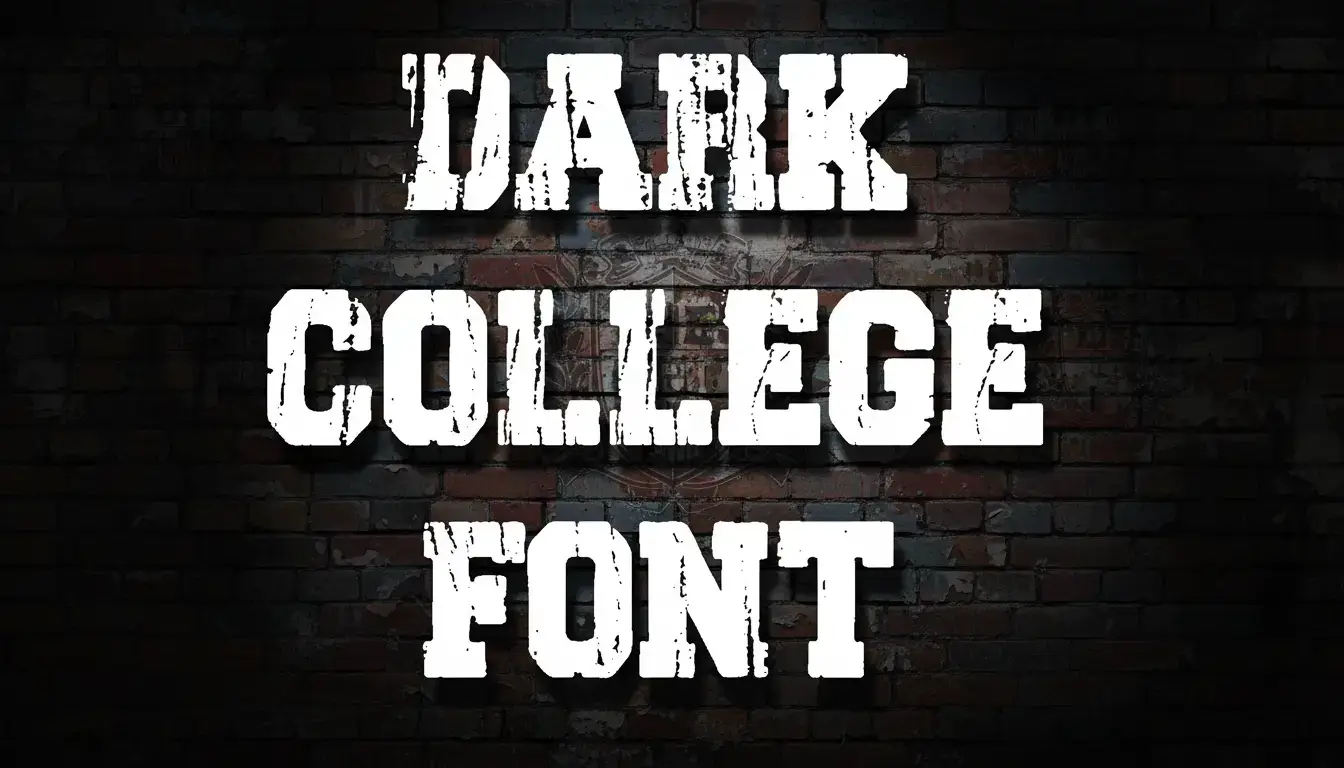
Dark College Font
Dark College
Dark College is a fancy font made by Woodcutter Manero. Bold and full of character, it's built to stand out rather than blend in. You can download it for free and test it with your own words in the preview above.
You get every letter from A to Z in both cases and all the numbers from 0 to 9, which means Dark College can handle full sentences, dates and prices. Common punctuation such as &, !, ? and @ is included as well. It also has the accented letters you need for Spanish, French, German, Portuguese and Italian.
Think of Dark College for posters, logos and eye-catching headlines. Use it for one standout word or headline and let simpler fonts handle the rest.
Yes. Dark College includes the accented letters needed for Spanish, French, German, Portuguese and Italian, so it works for more than just English.